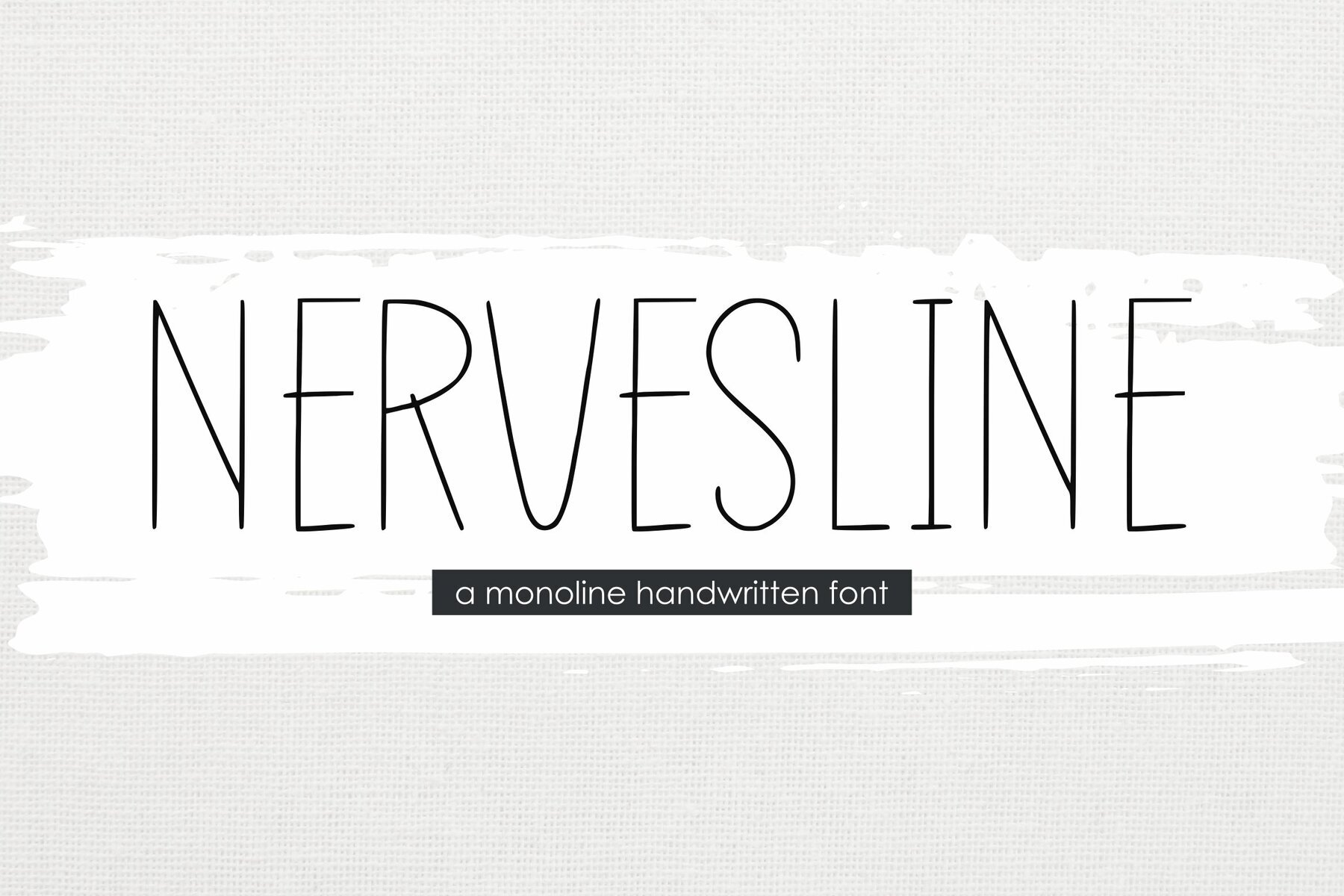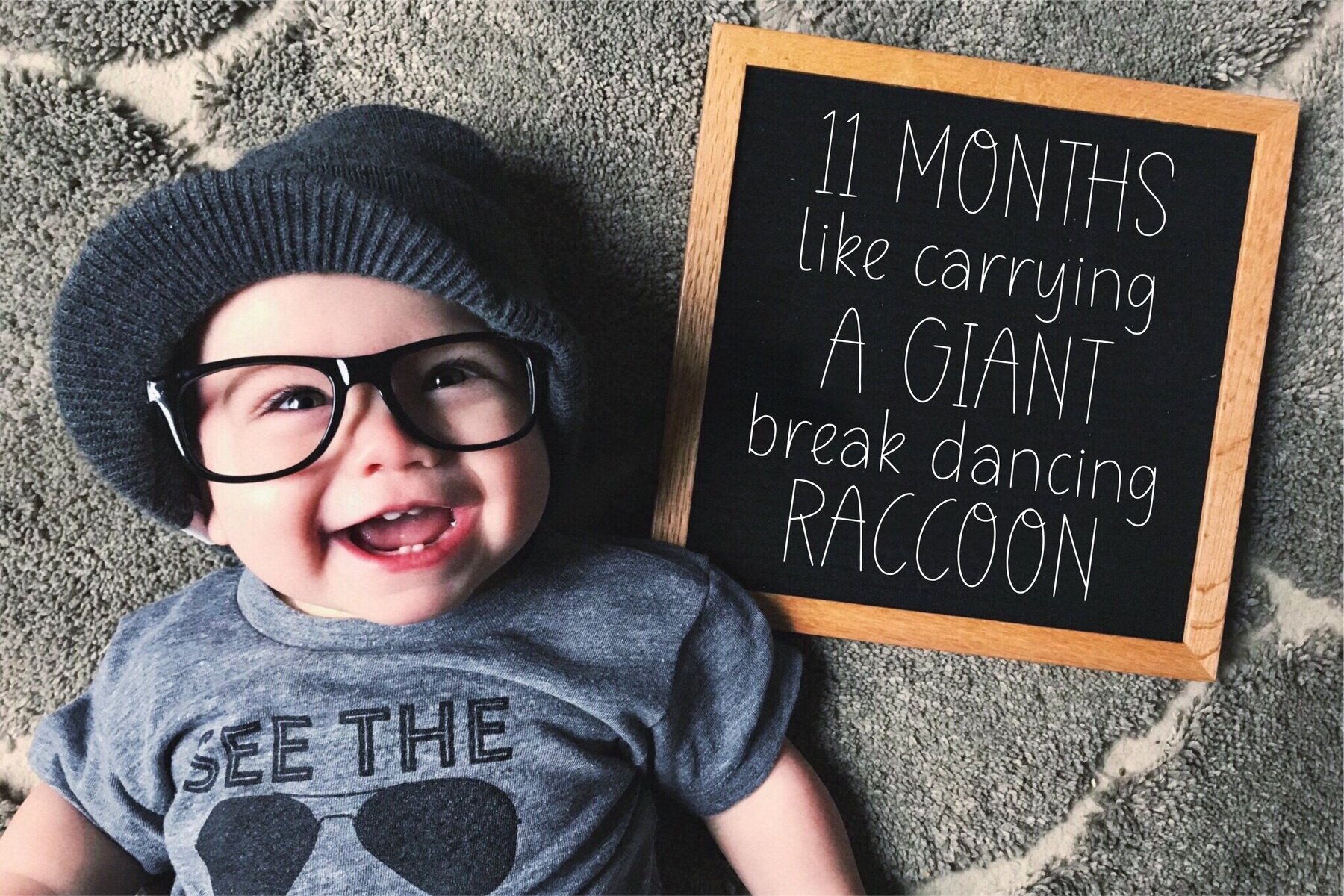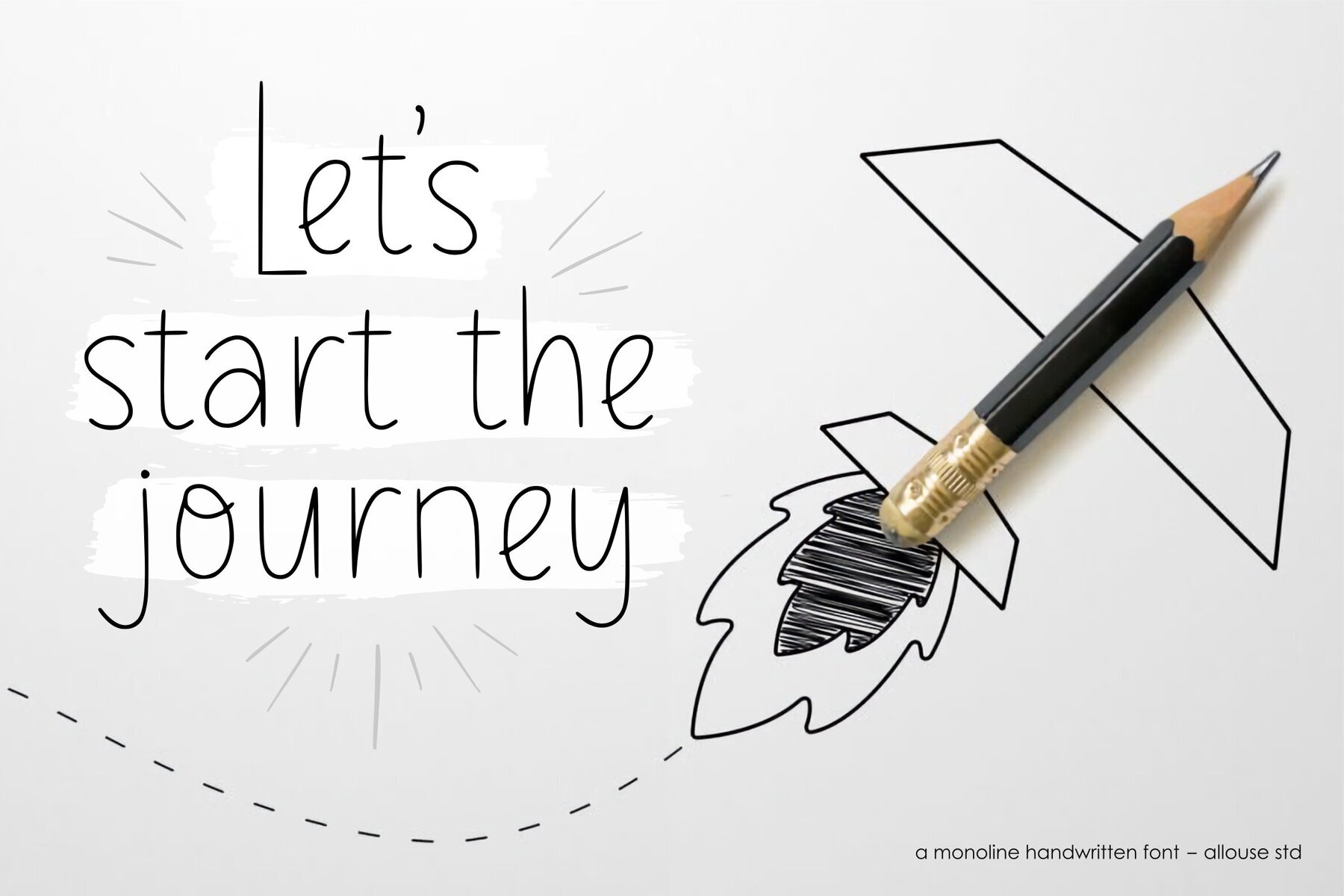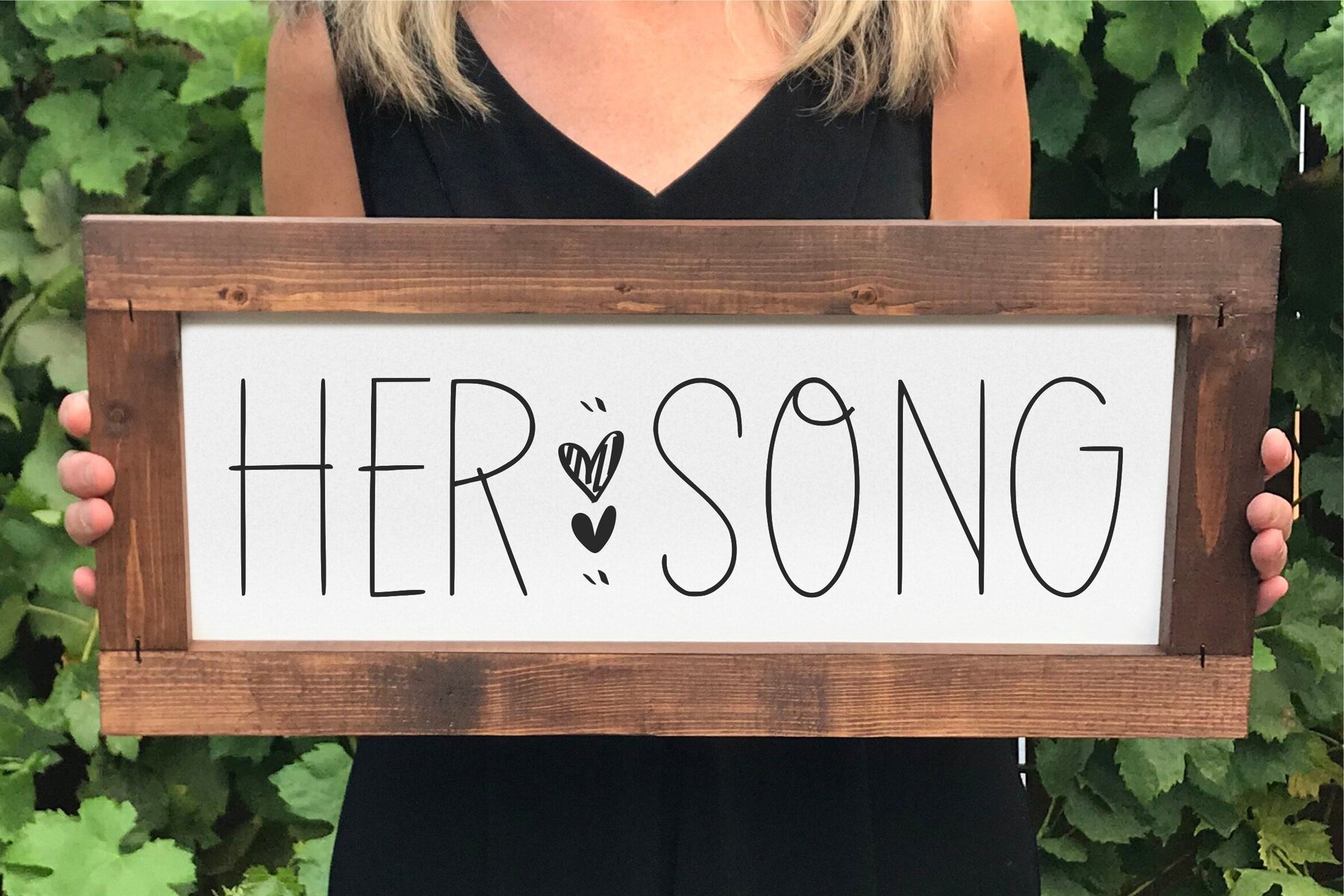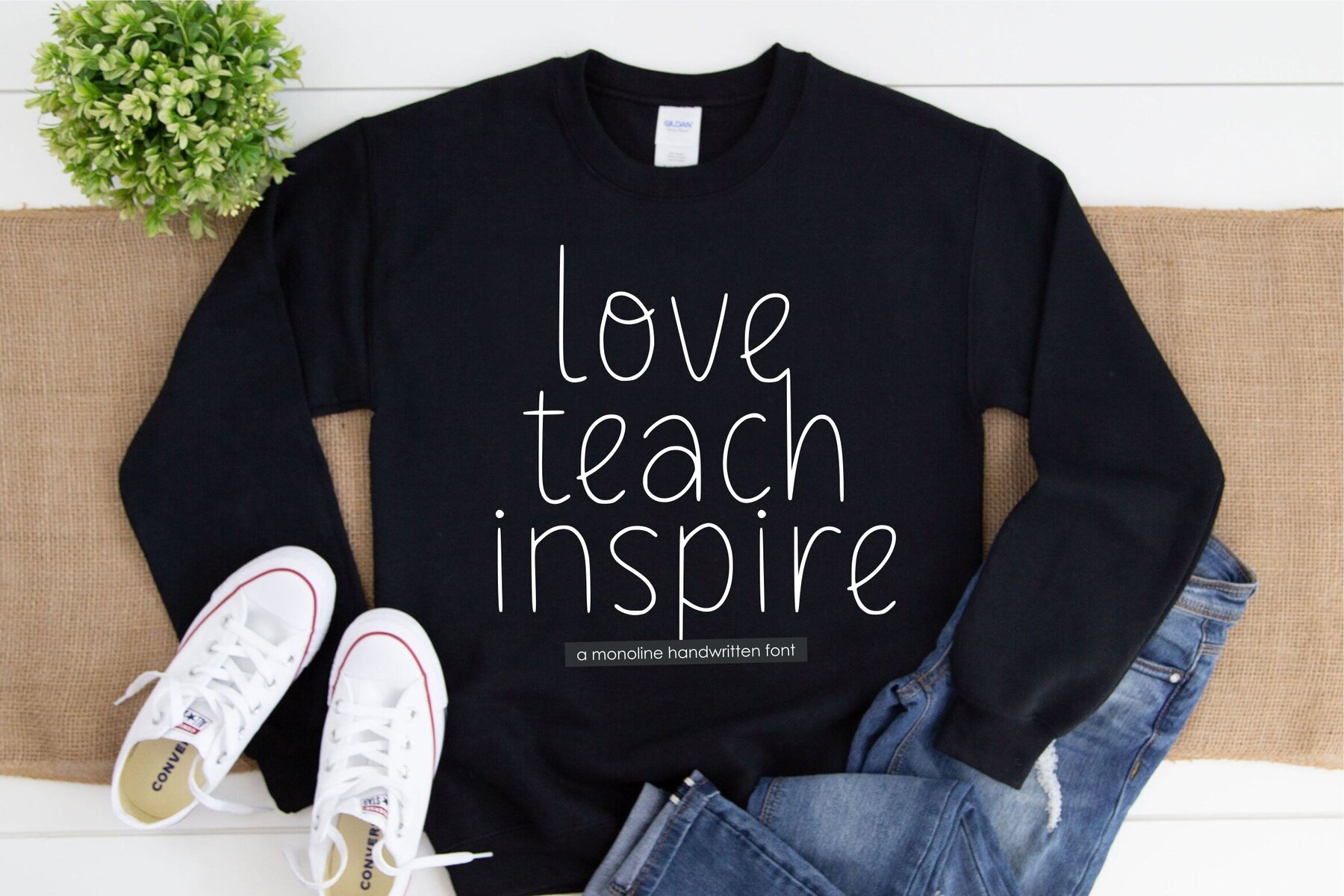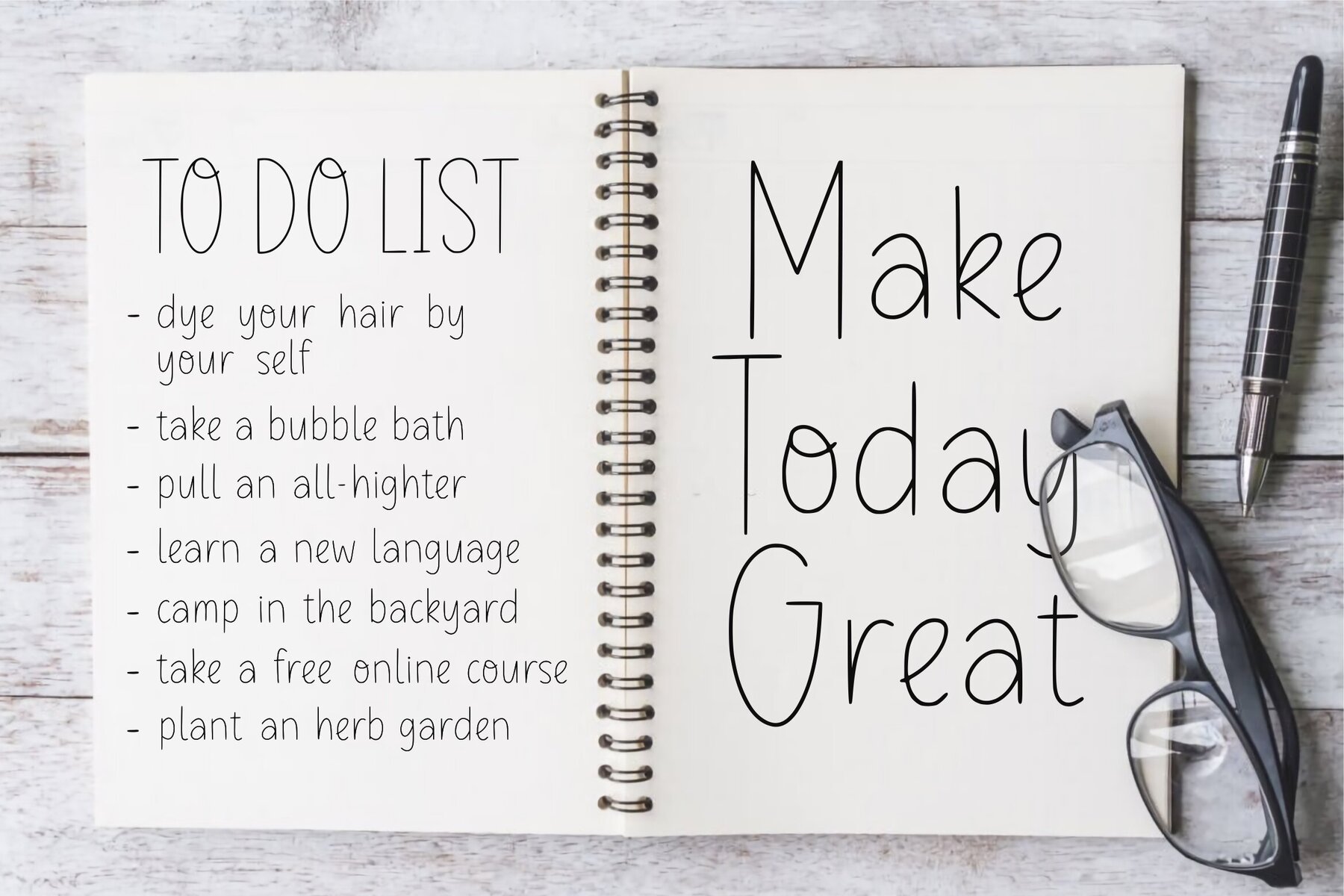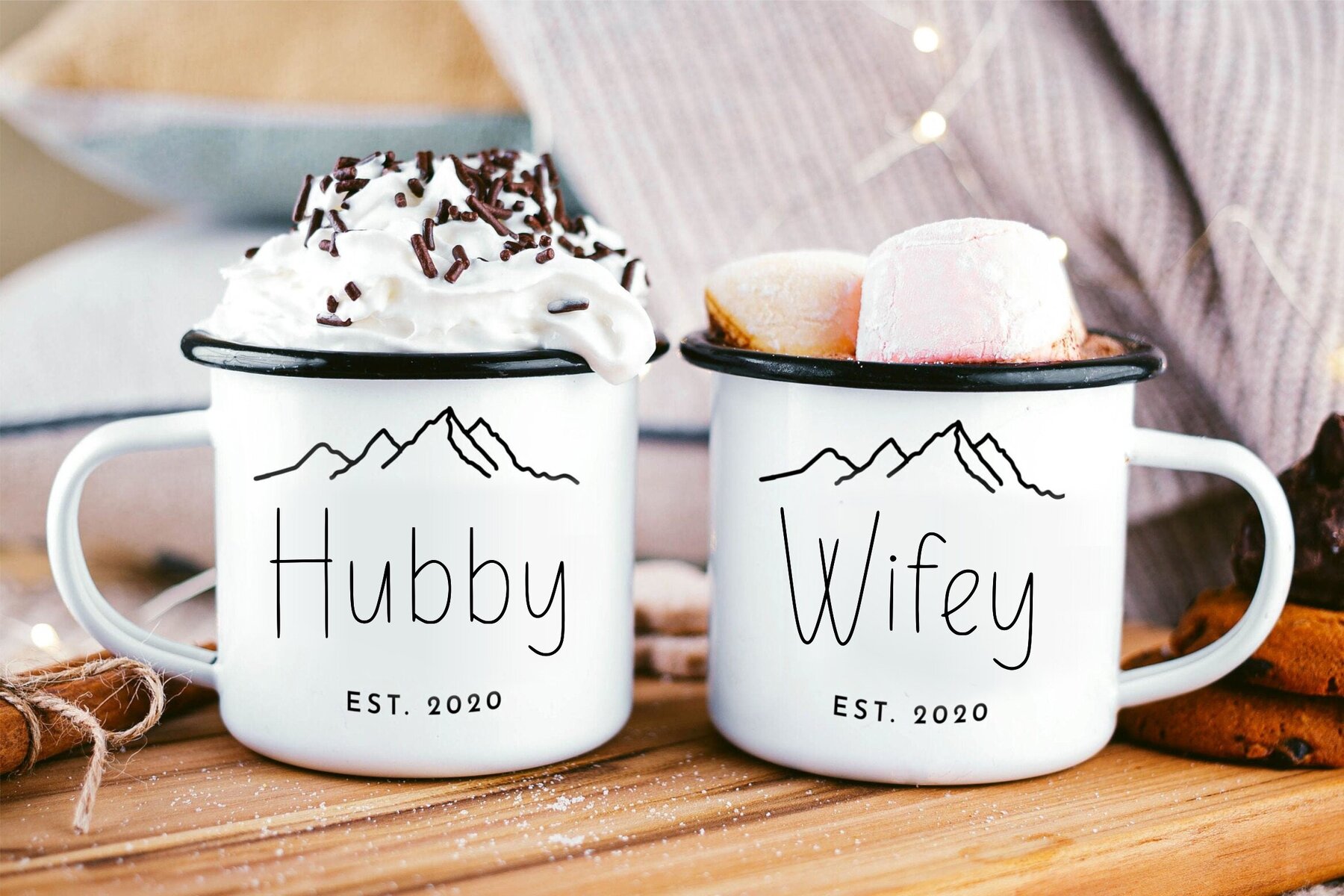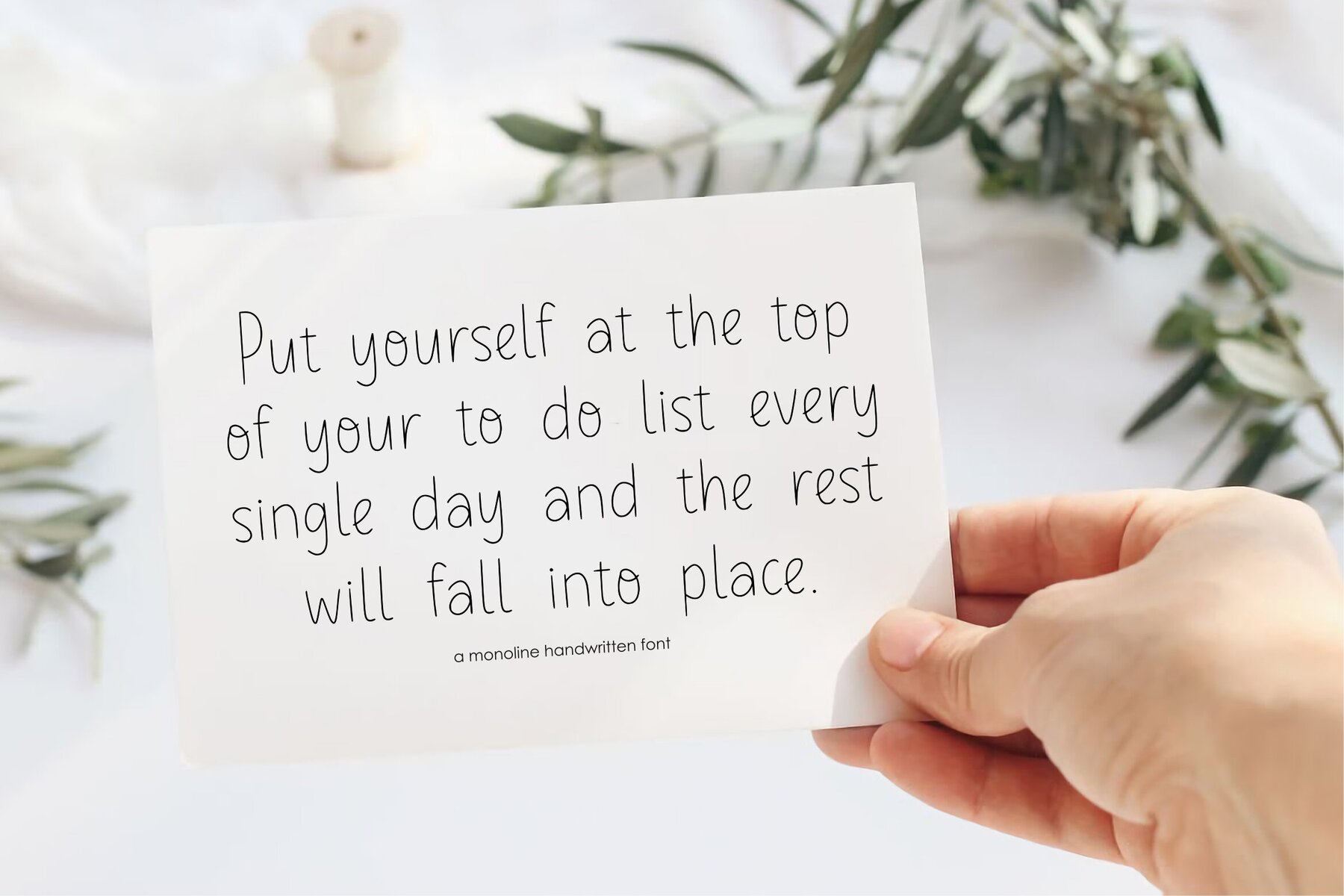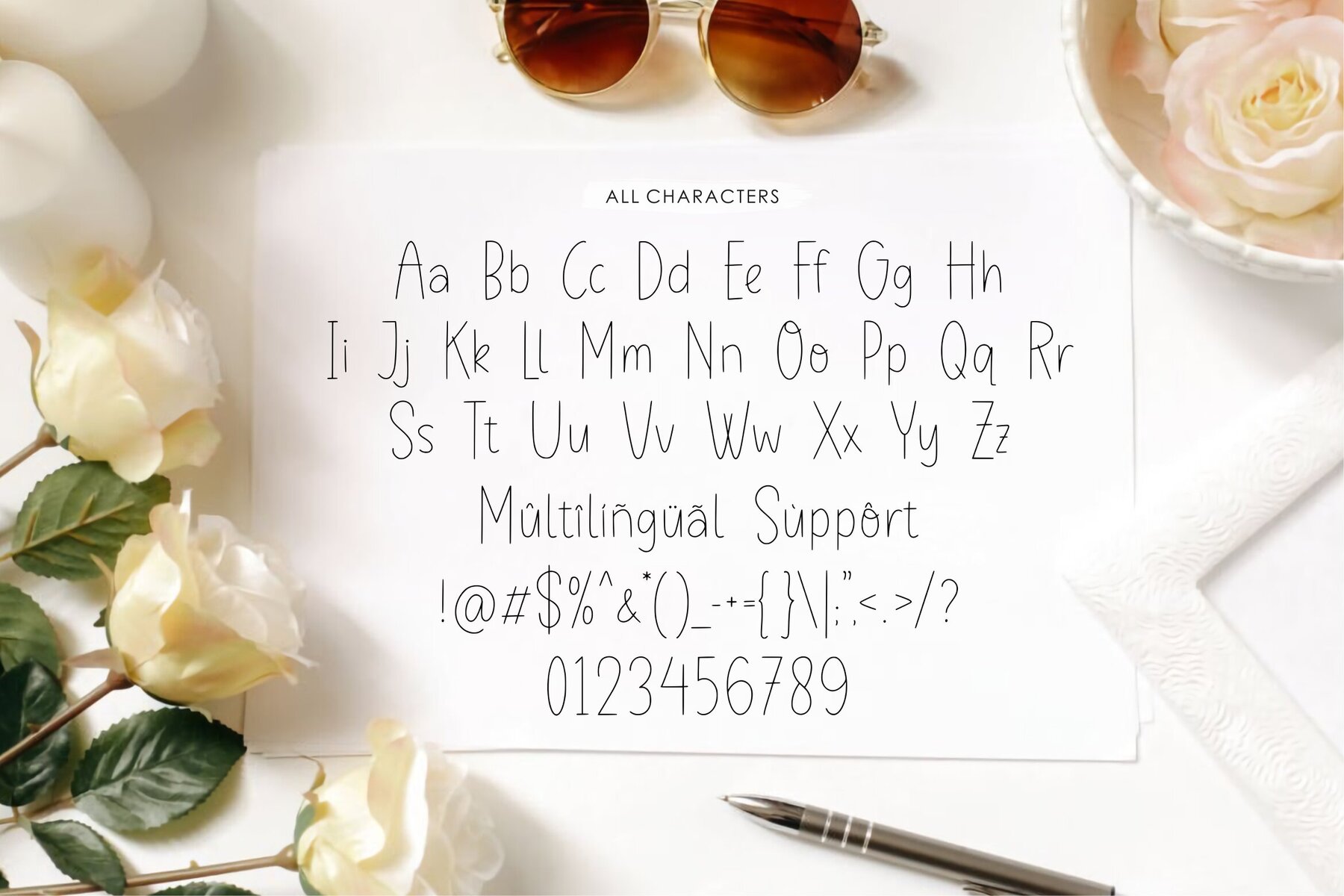
Nervesline Font
Nervesline Regular
Nervesline offers an elegant solution for designers seeking an adaptable typeface capable of enhancing various creative projects. Its refined lines are ideal for product packaging, branding ventures, and editorial layouts, making it a favorite among many graphic designers.Nervesline: Versatile Typeface for Diverse Design Needs